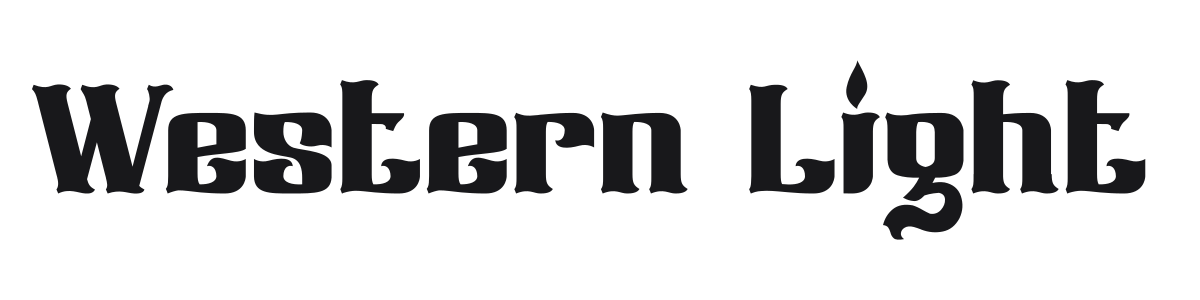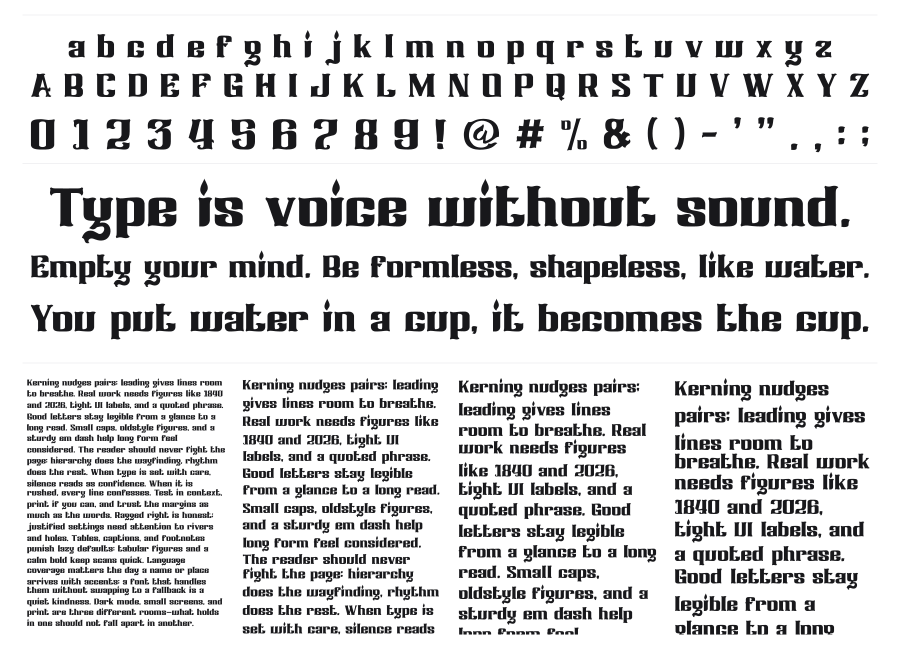
Western Light
Western Light is a bold gothic display font from Typeline Studio with blackletter roots and a rugged, Western-inflected attitude. Heavy compressed strokes, angular terminals, and small decorative flourishes give it a raw, high-impact character that works well for logos, band names, and apparel graphics. The dense blackletter structure carries real historical weight while leaning toward contemporary streetwear and tattoo culture.